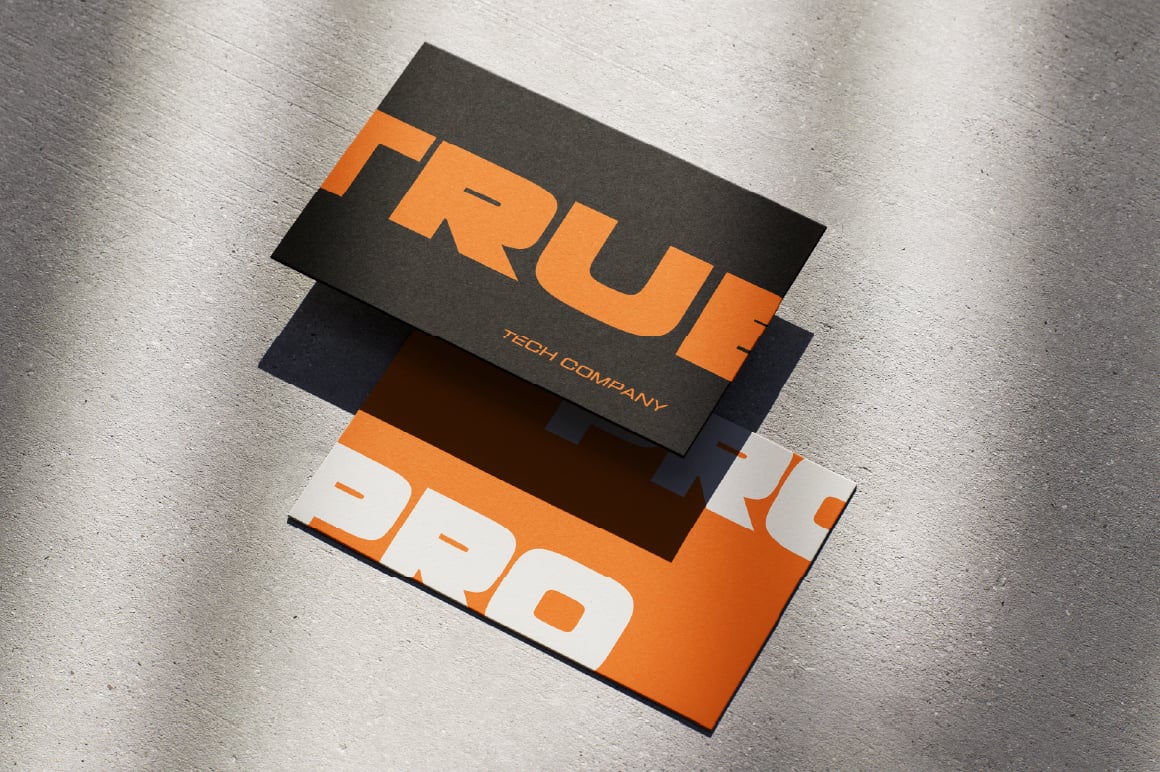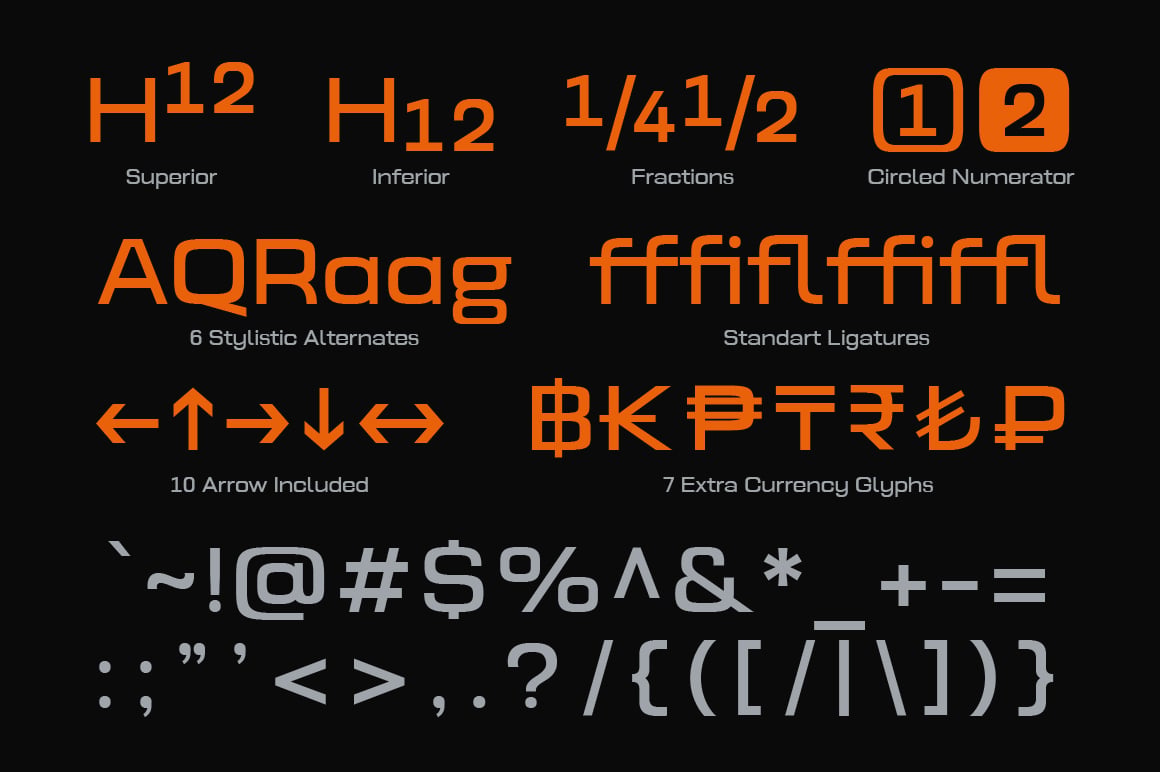
Prolinea – Expanded Geometric Sans Serif Family Font
Prolinea is an expanded geometric sans serif from Lettertype Studio and Pradipta Creative. The letters are wide and squared-off, with flat sides on round letters, which gives it a strong, modern presence on business cards, signage and sportswear. At the heaviest weights it is a real poster font. At the lightest, it is precise and technical.
The family has 20 styles: ten weights from Thin to Extra Black, each in upright and oblique, plus a variable version. Lettertype Studio also packed in stylistic alternates, standard ligatures, superior and inferior figures, fractions, circled numbers, arrows and extra currency symbols, which makes it practical for interfaces and data, not just headlines.
Best uses for Prolinea
• Tech and corporate brand identities
• Sports, esports and automotive graphics
• Business cards and stationery
• App interfaces and dashboards
• Bold posters and campaign headlines
Prolinea is wide, so contrast it with something narrower or softer. Inter is a dependable body font for websites and apps. For an editorial pairing, try Source Serif 4. In tech layouts, IBM Plex Mono suits labels, specs and code snippets.
What free font is similar to Prolinea?
For a free, open-licence expanded sans, try Unbounded, which also comes in many weights, or Krona One for a single wide display style.